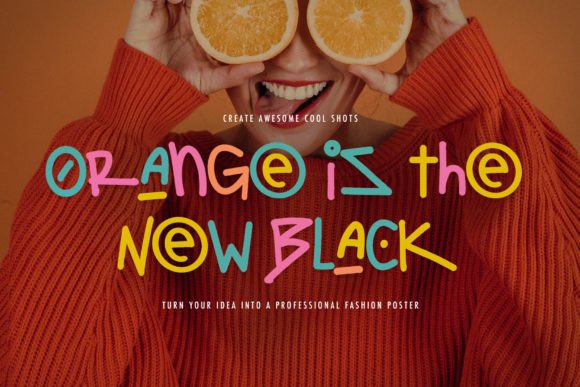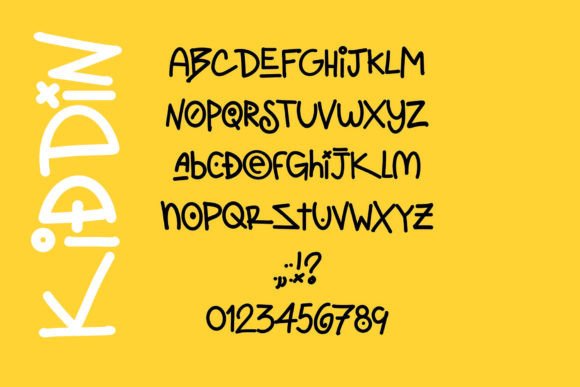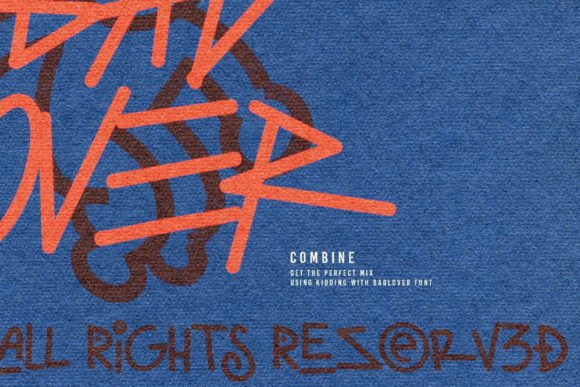
Get Ready to Add Some Quirky Flair to Your Designs
You know that moment when you’re brainstorming a new project and the perfect font just clicks into place? It’s like the whole design starts to come together, and you can almost taste the creativity flowing. For me, that moment happened when I stumbled upon the Kiddin Font. Its cool, funky vibe is infectious, and I knew I had to share it with fellow designers.
Kiddin Font is a playful, handwritten display font that’s perfect for adding a trendy, urban touch to your projects. Its uniquely-shaped characters are a breath of fresh air in the world of typography, and I’m excited to dive into what makes it so valuable for designers like us.
Kiddin Font Key Features
- Unique Characteristics: Kiddin Font features a playful, handwritten style with irregular letterforms and subtle flair, making it ideal for creative projects and designs that require a personal touch.
- Font Style: Kiddin Font is a script font, perfect for titles, headings, and short blocks of text where a touch of elegance and sophistication is needed.
- Font Weight: The font has a single weight, but it can be used to create a range of visual effects by adjusting the font size, color, and spacing.
Kiddin Font Review
I recently had the chance to play around with the Kiddin font, and I must say it’s a unique and quirky addition to any design project. ✨ Here are a few things that work well:
- Expressive nature: Kiddin font has a lot of character and can add a touch of whimsy to your designs.
- Good for creative projects: Its playful feel makes it perfect for children’s books, party invitations, and other creative projects.
- Unique flair: It’s a great way to add some personality to your designs and stand out from the crowd.
- Readability: At certain font sizes, Kiddin can be a bit hard to read, especially for large blocks of text.
- Limited versatility: It’s not the best choice for formal or professional projects, as it may come across as unprofessional.
Overall, I’d say Kiddin font is a fun and creative addition to any designer’s toolkit. It’s perfect for projects where you want to add some personality and whimsy, but it may not be the best choice for more formal or professional work.
Tips for Getting the Most Out of Kiddin Font
Use Kiddin Font for playful and creative projects, such as children’s book illustrations, cartoon characters, or advertising campaigns targeting a younger audience.
Experiment with different font sizes, colors, and combinations to create a unique and eye-catching visual effect.
Kiddin Font is ideal for:
- Cartoon characters
- Advertising campaigns targeting a younger audience
- Playful social media graphics
Alternatives to “Kiddin Font” for Designers
Great Vibes Font is a modern, elegant script font that is perfect for creating a sophisticated and stylish design. It features a flowing, cursive design that is ideal for headings, titles, and other emphasis text.
Comparison to Kiddin Font: While Kiddin Font is playful and fun, Great Vibes Font is more refined and elegant. Great Vibes Font is better suited for designs that require a touch of sophistication and glamour.
Pacifico Font is a beautiful, handwritten font that is perfect for creating a relaxed and casual design. It features a unique, hand-drawn design that is ideal for headings, titles, and other emphasis text.
Comparison to Kiddin Font: While Kiddin Font is playful and fun, Pacifico Font is more laid-back and casual. Pacifico Font is better suited for designs that require a touch of personality and charm.